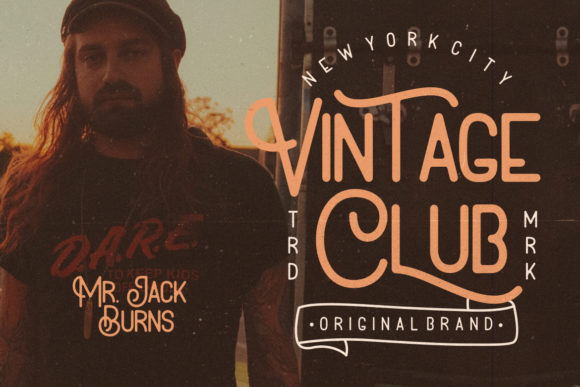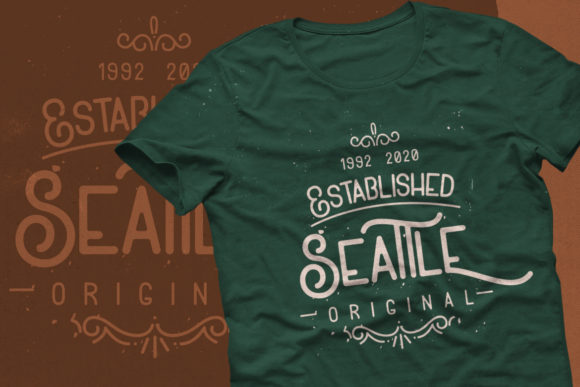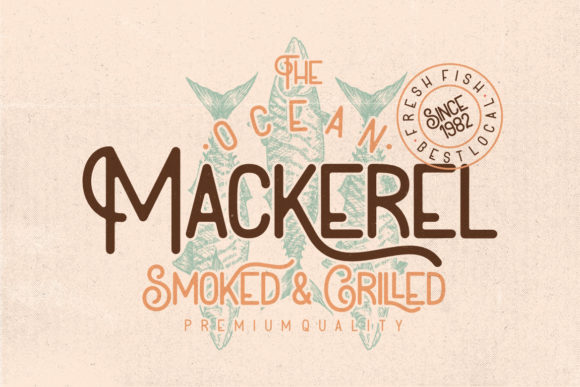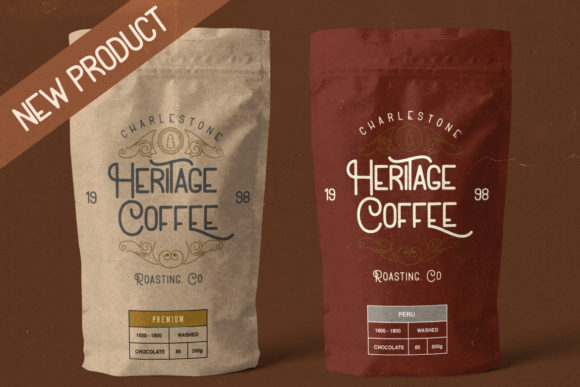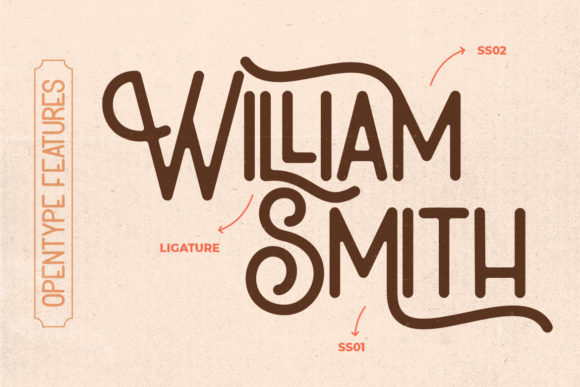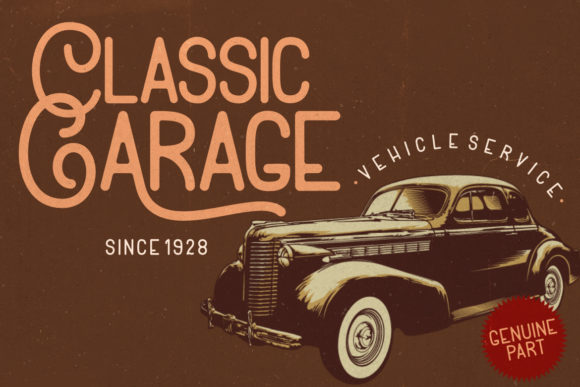
Introduction to Jabottabeck Font
Jabottabeck is a vintage styled display font.
It features a neat, all round characters and a retro touch Add it confidently to your projects, and you wonโt be disappointed.
Key Features of Jabottabeck Font